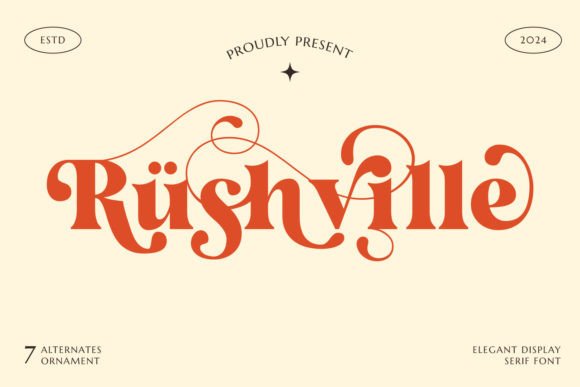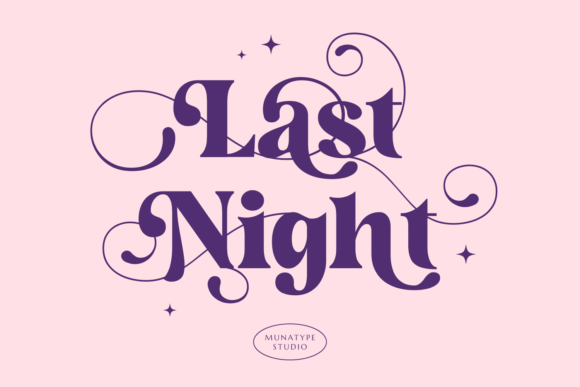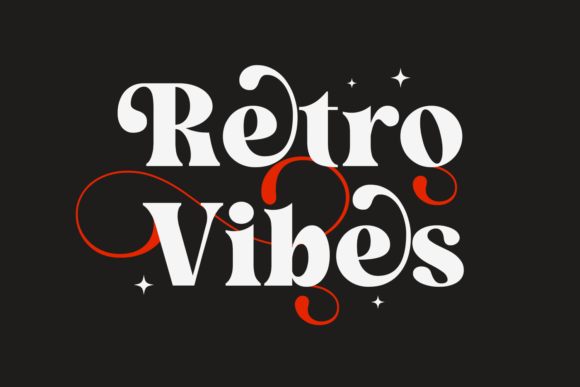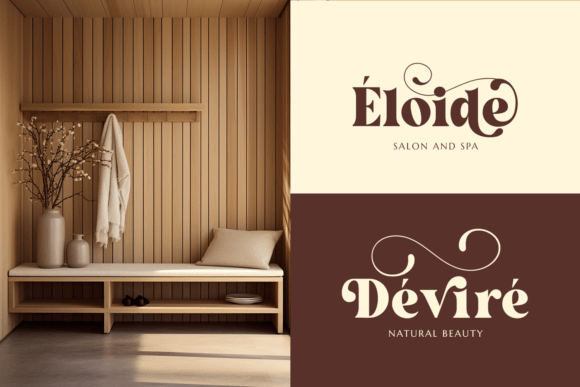
Rushville Font
Introducing Rushville, a fun and playful serif font that brings a touch of nostalgia and creativity to your projects. Perfect for a wide range of applications, from magazines and postcards to logos and DIY projects, Rushville embodies a vintage charm that evokes the classic styles of the 60s, 70s, and 80s. Its unique character and whimsical design make it an ideal choice for invitation cards, quotes, and any project that requires a retro flair.